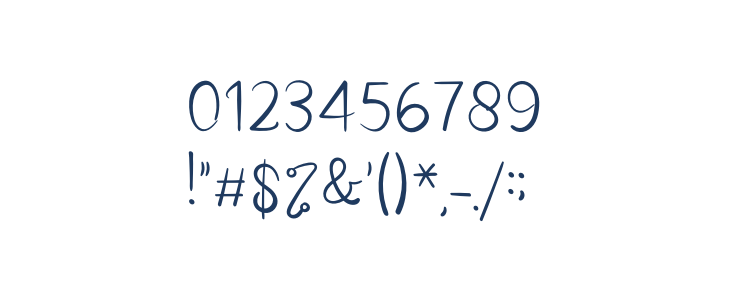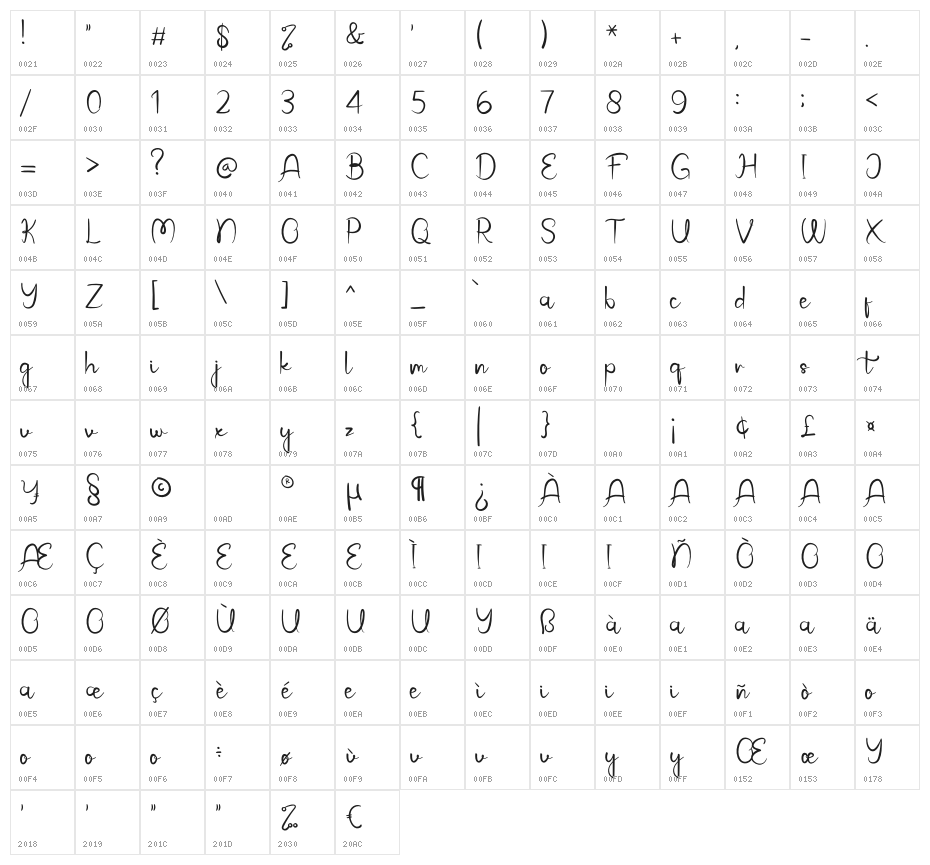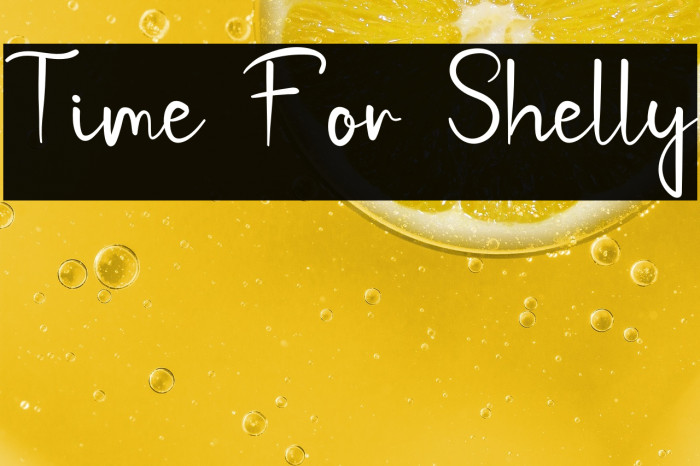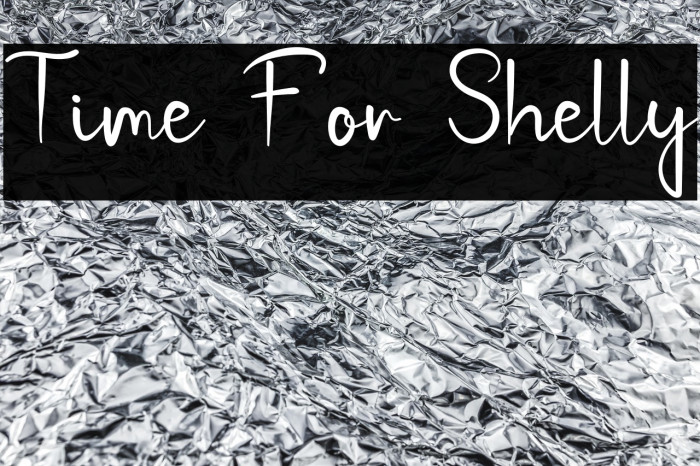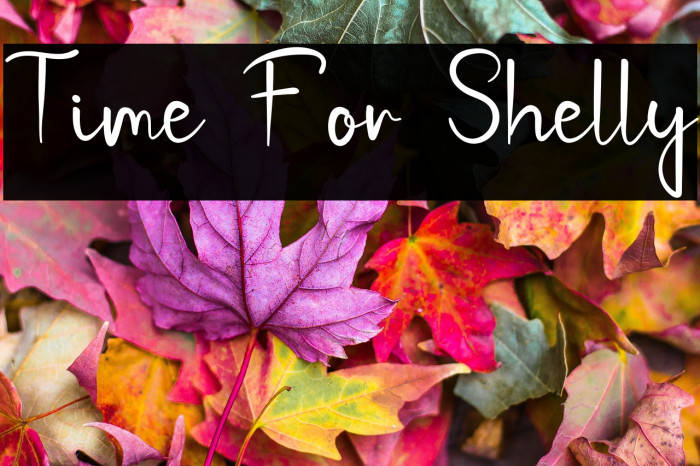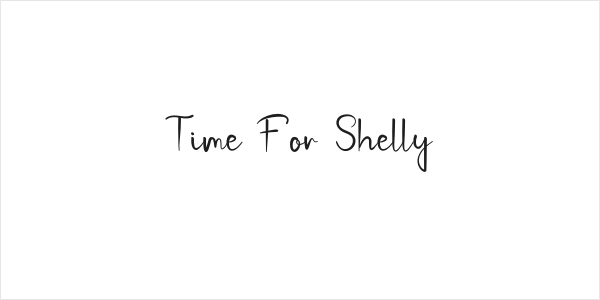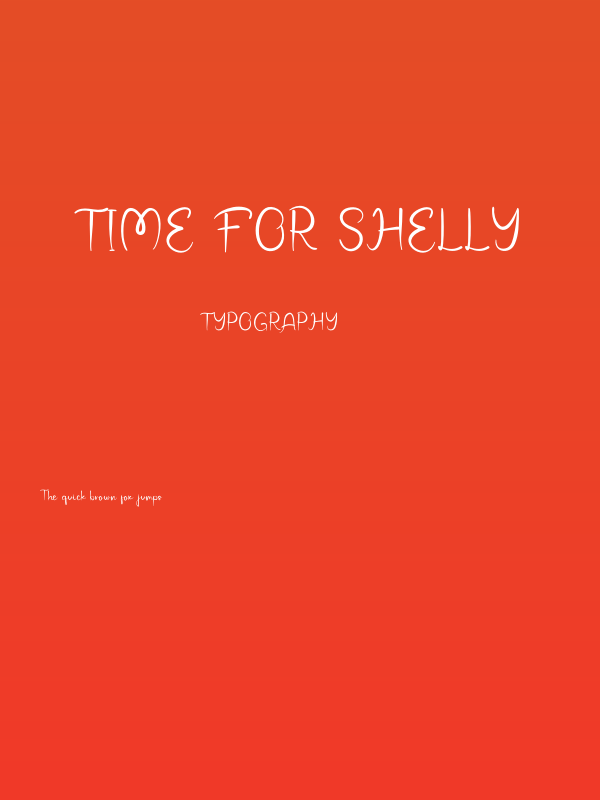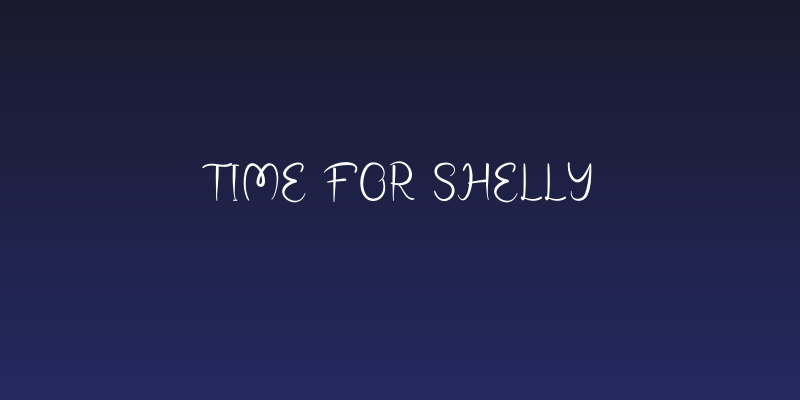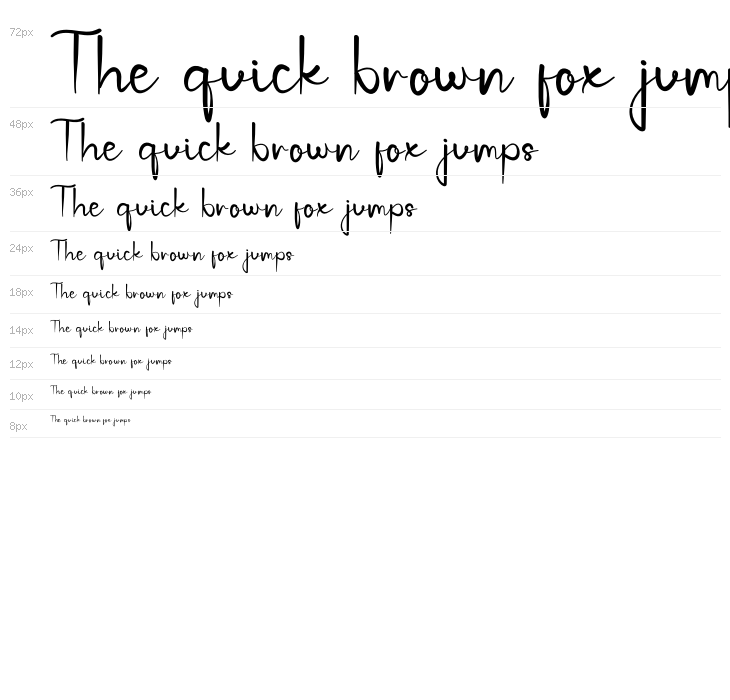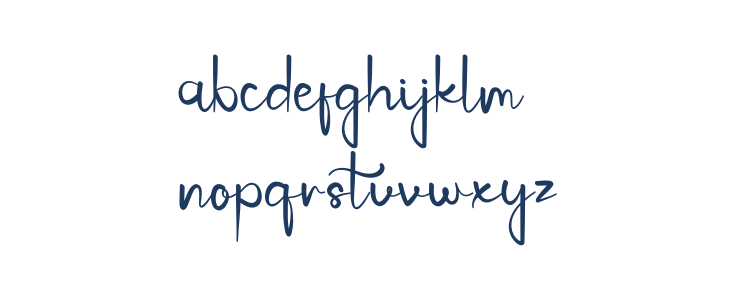
Time For Shelly Font
Time For Shelly Description
This font features a playful and elegant script style with a handwritten appearance. The uppercase letters are characterized by their tall, slender forms with gentle curves and loops, giving them a whimsical yet sophisticated look. The lowercase letters maintain a consistent flow, with some letters featuring unique flourishes that add to the font's charm. The numerals are clear and easy to read, while the special characters are designed to complement the overall style, maintaining the same fluidity and grace. This font is perfect for projects that require a touch of elegance and personality.
| Use Case | Logos, Invitations, Headlines |
| Proposed Projects | Ideal for wedding invitations, greeting cards, branding, and social media graphics. |